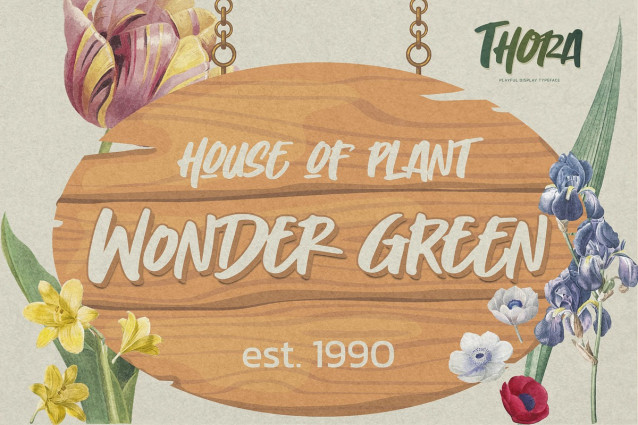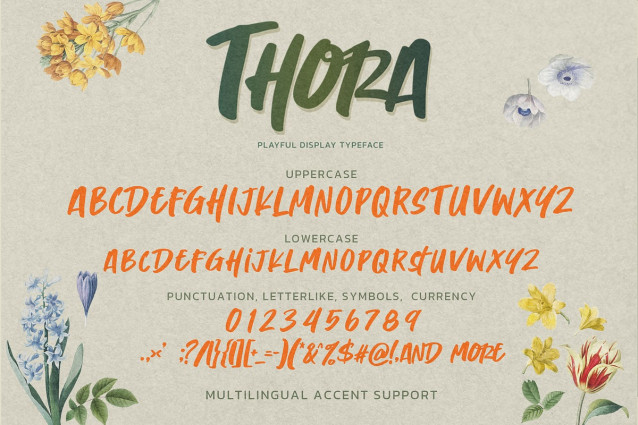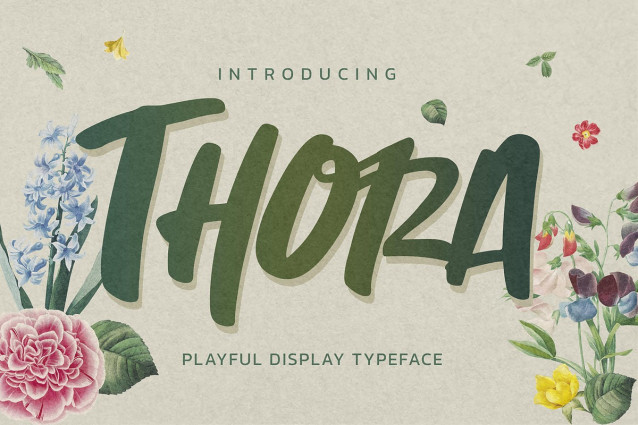
Thora Font
Thora Font is a lively and expressive display typeface inspired by natural flow, soft curves, and organic hand-drawn strokes. Designed to bring a warm, joyful, and whimsical feeling, THORA adds a refreshing touch to any layout with its friendly character and artistic charm.
With its smooth brush details and lighthearted personality, THORA fits beautifully in designs that embrace creativity, elegance, and a touch of nature. Perfect for projects that need a welcoming and visually delightful presence.